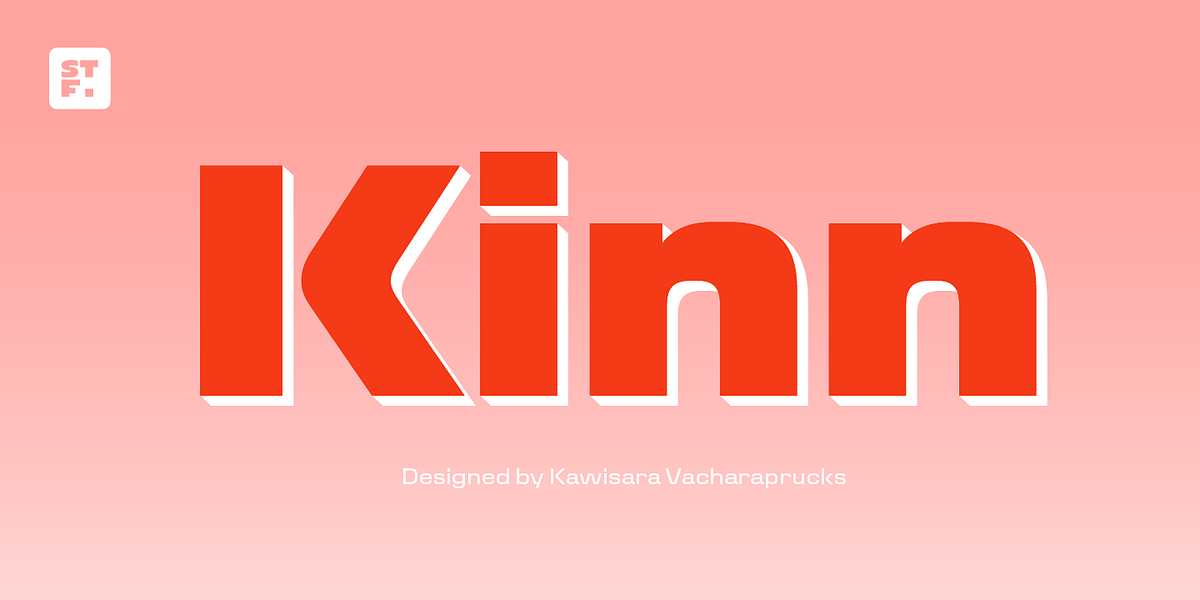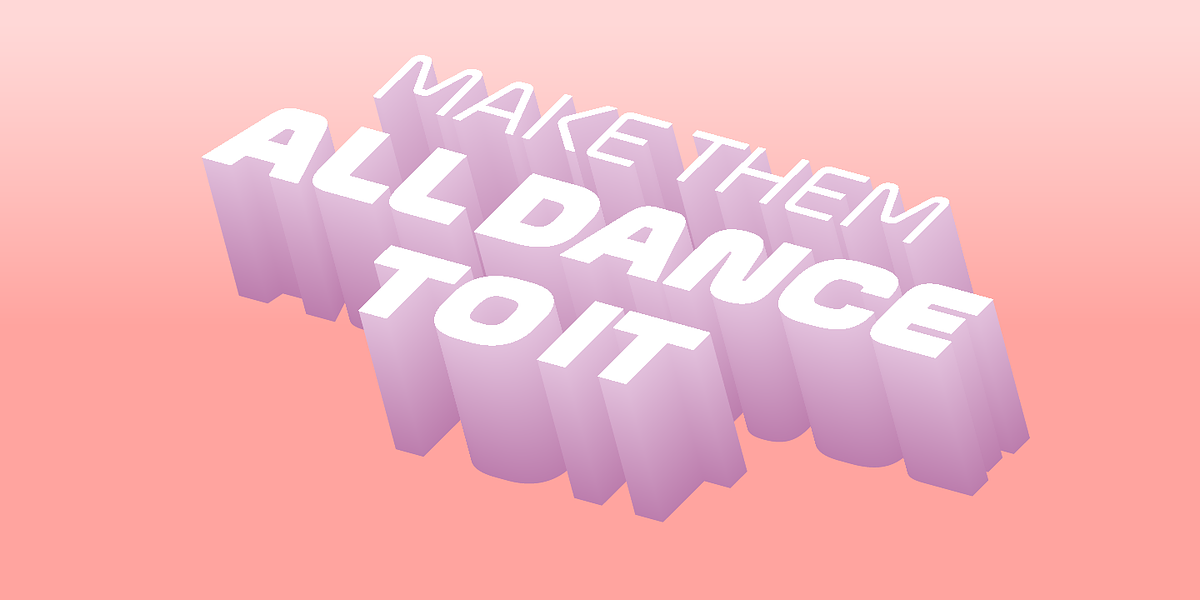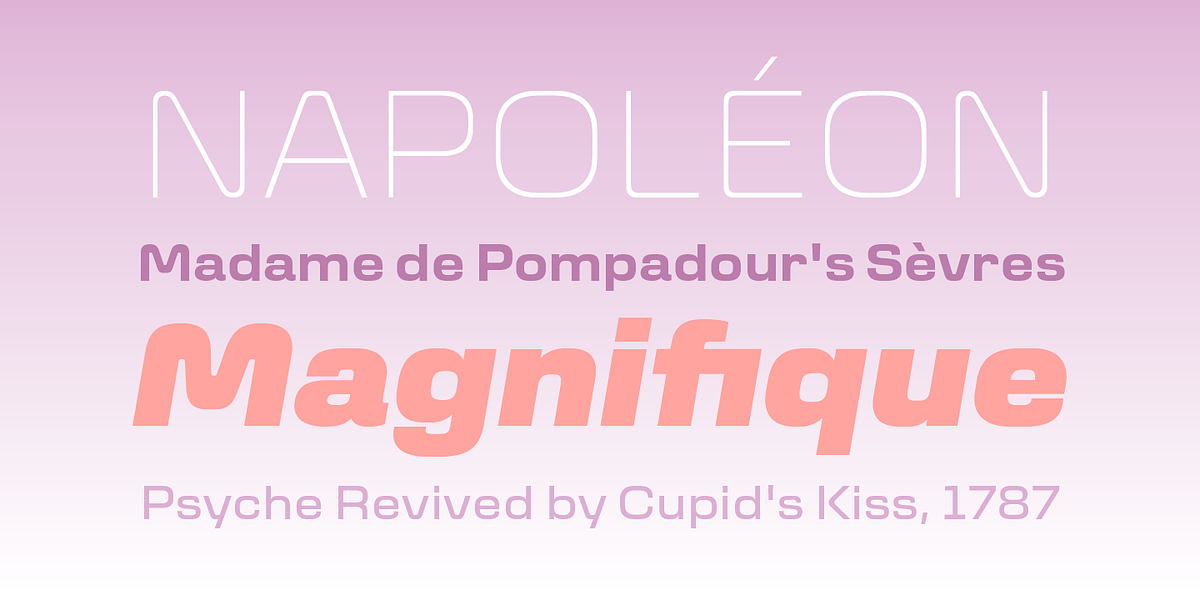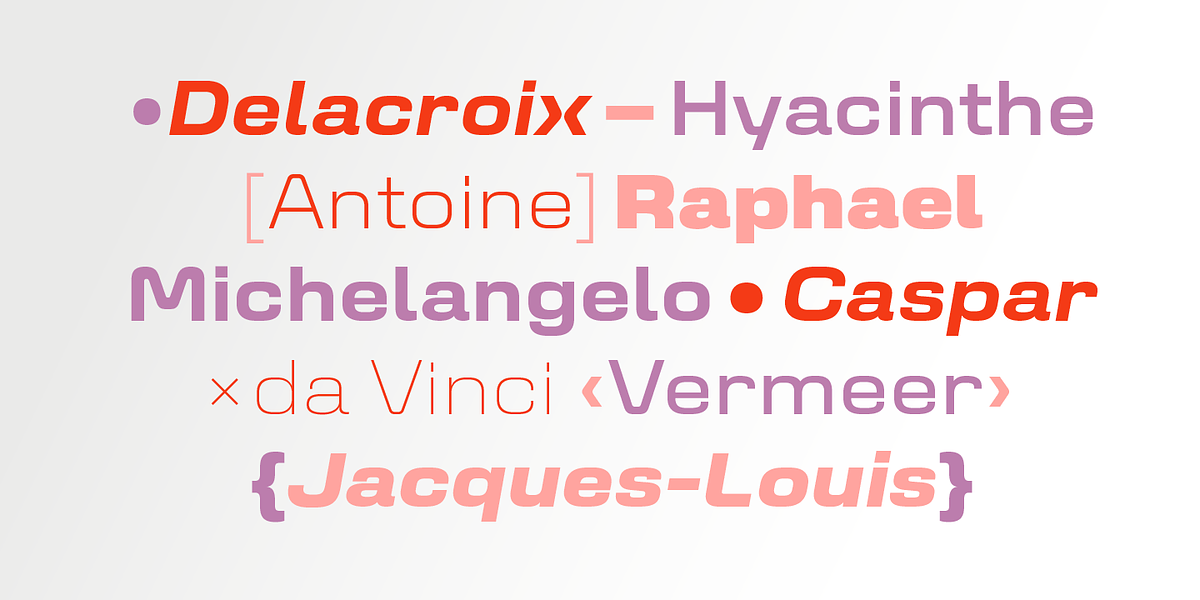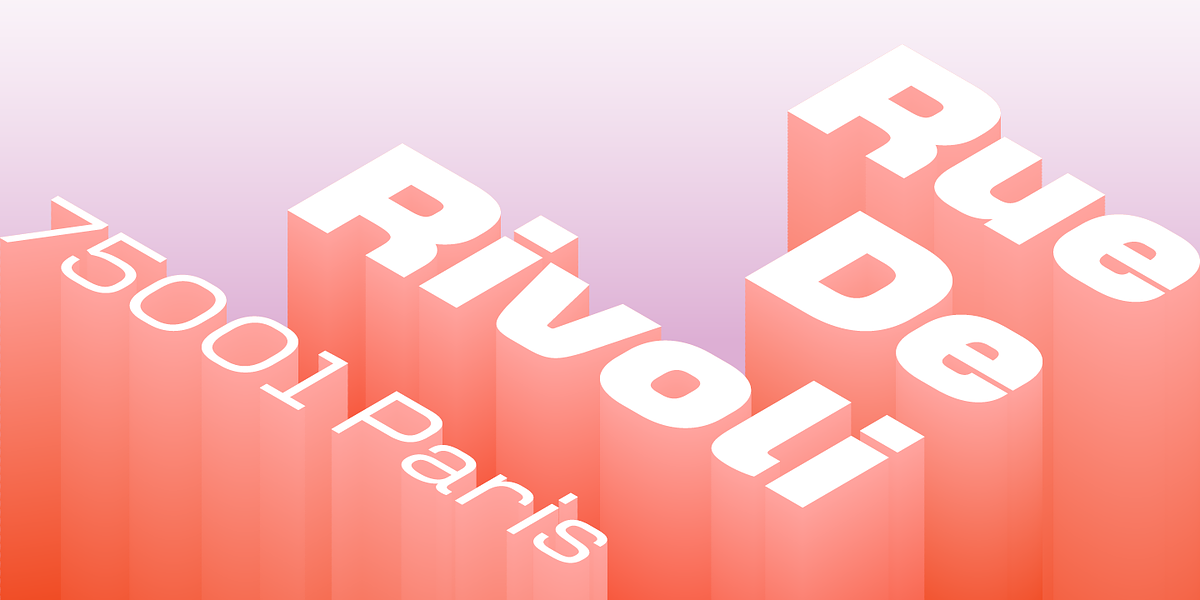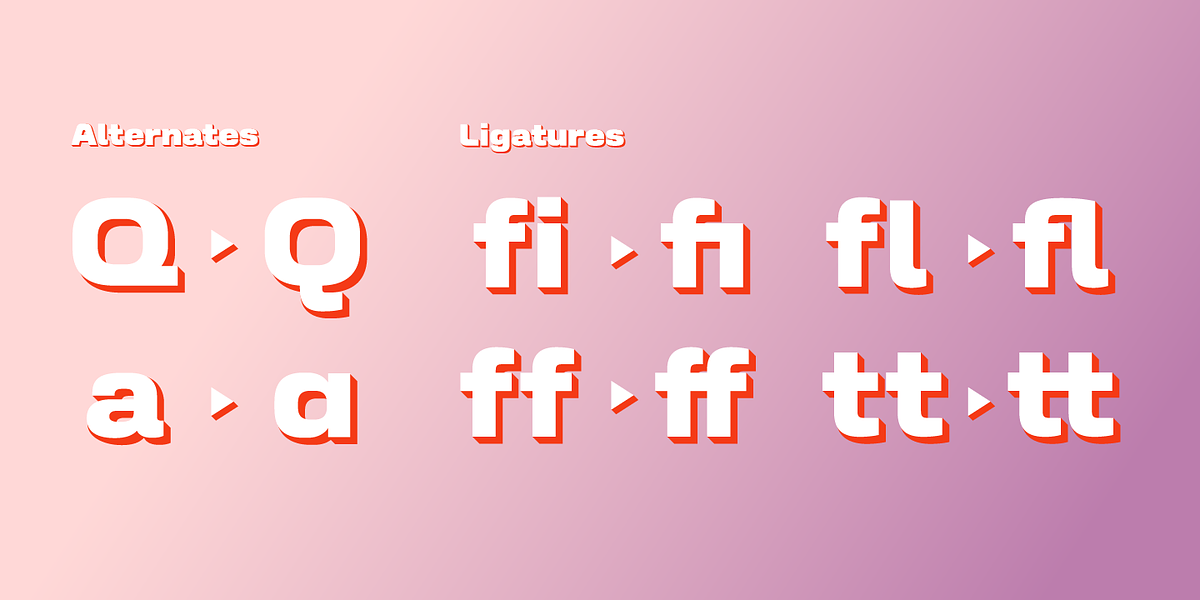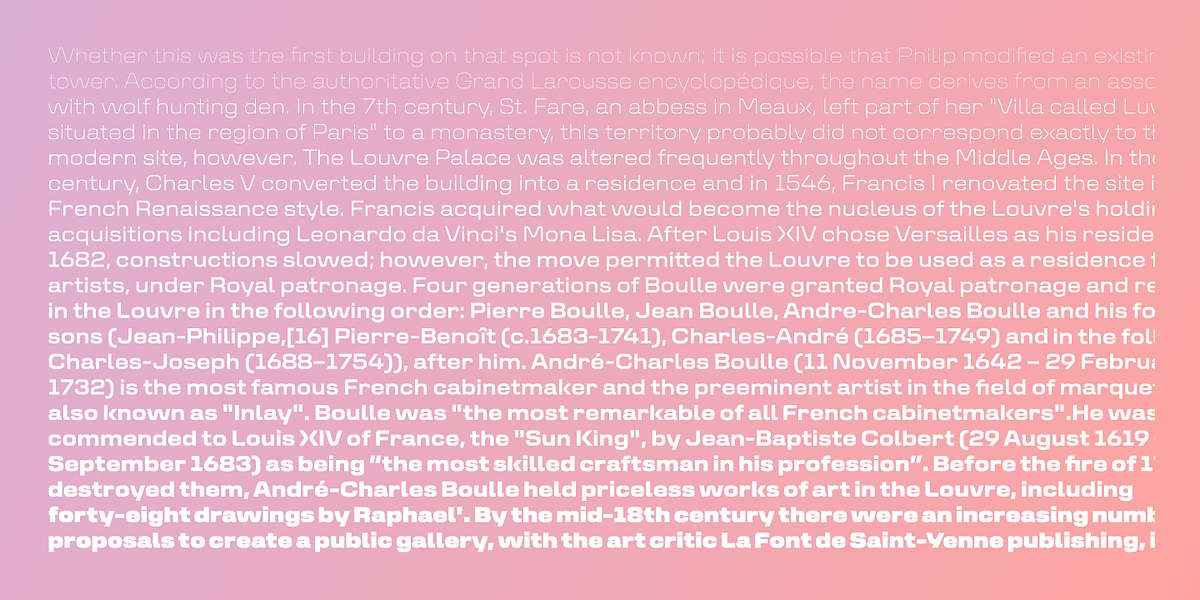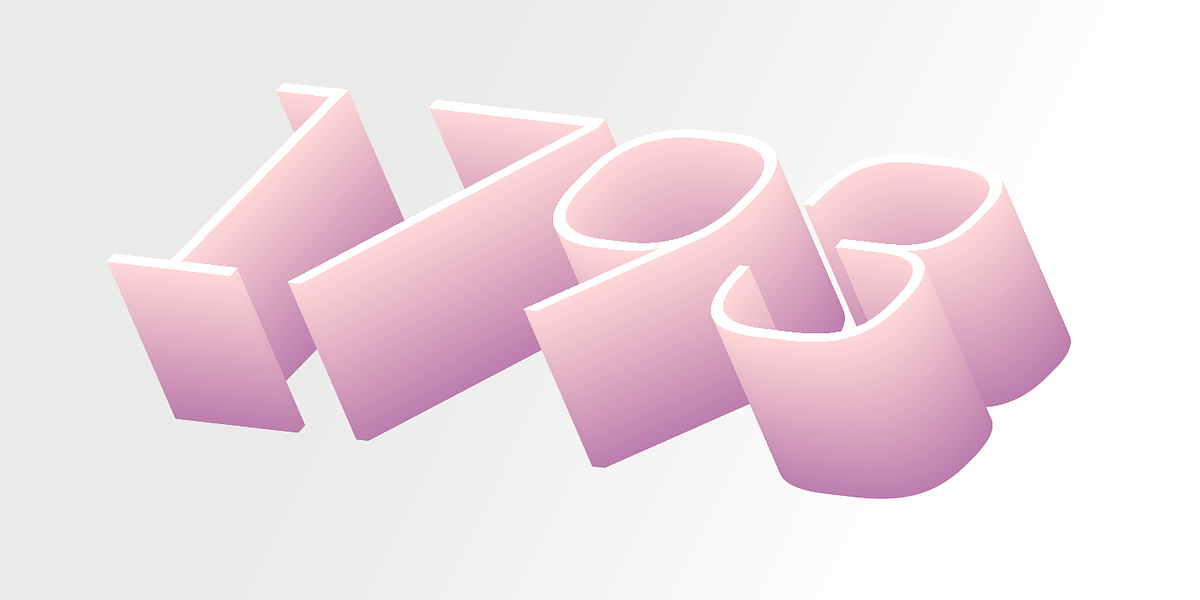
Kinn
Kinn is a square sans serif font designed with a futuristic aesthetic in mind. Its robust structure and squared letterforms give it a strong presence, while subtle rounding softens the overall look and adds a touch of friendliness. This versatility makes Kinn suitable for a variety of applications, from bold headlines and displays to more extended body text. The wide proportions further enhance its readability and adaptability.